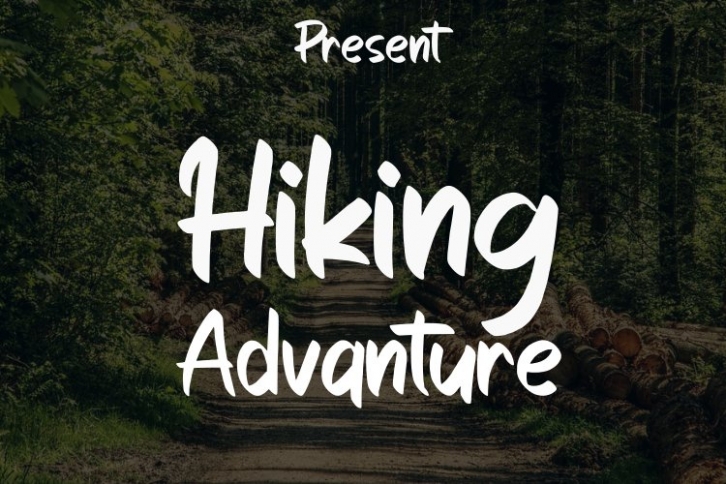
Hiking Advanture is a beautiful font that was designed by kreatif eric. It's a great choice for designers and creatives who need such a font. It was released on October 8, 2022 and the file size is 8.20 MB. Hiking Advanture may give a more youthful, expressive and casual look to your project. It is a very beautiful, refined, elegant, and high-quality font.